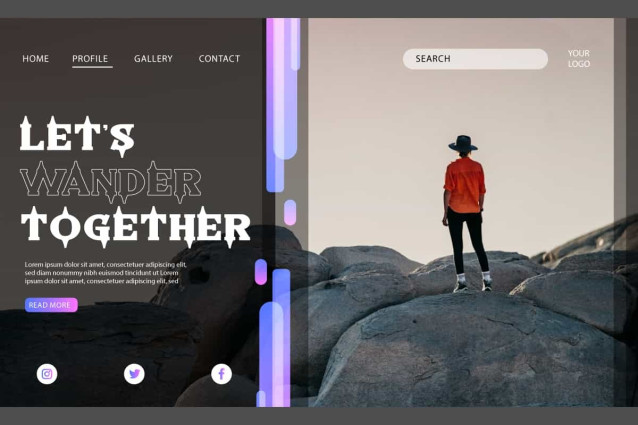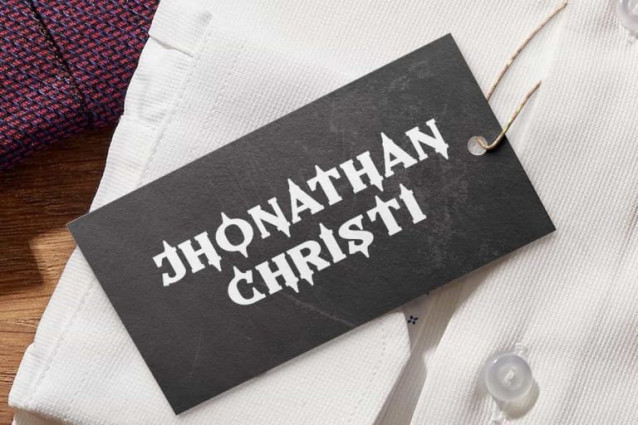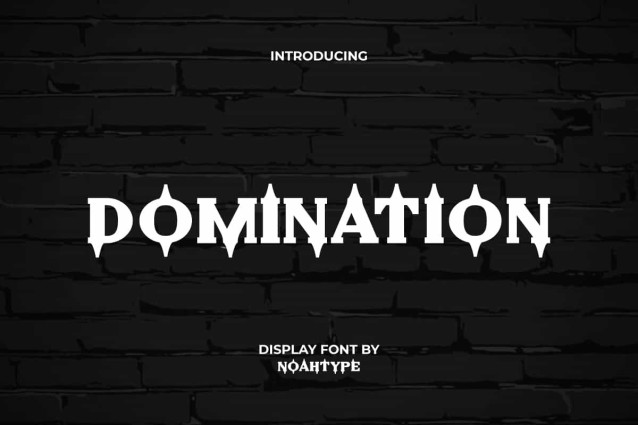
Domination Font
Domination Font is a bold and fancy display font, created by NoahType. This font has a Black Metal theme with the addition of sharp angles on each letters. It will be perfect for any designs, such as signage, stationery, brand image, cover, custom design, poster, invitation, label, marketing material, menu, printing, product packaging, quotes, website, and many more!
Domination Font includes full set of ALL CAPS for Uppercase and Lowercase Basic Characters, Numerals, Punctuation, and Symbol. This font will make your design awesome and also a perfect choice for many industries, such as fashion, game, movie, barber shop, accessories, advertising, art, café, event or festival, printing, publishing, etc.